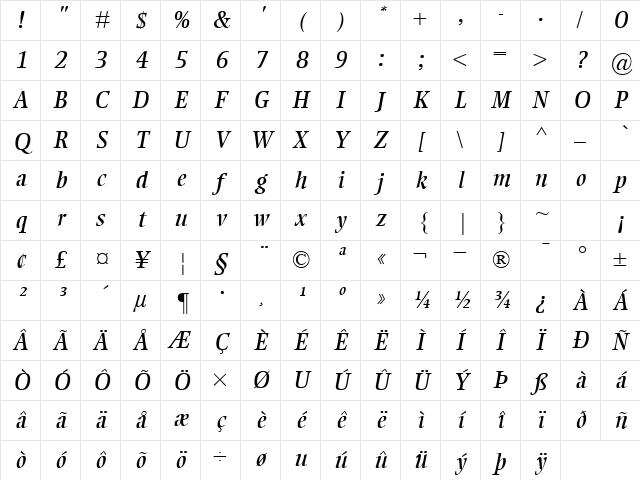
Duke Italic
Design Context for Duke
Duke is a composed and adaptable typeface that performs quietly and consistently across a wide range of design contexts. The slanted form adds forward momentum and visual energy.
Pro Tip: Use Duke for emphasis, pull quotes, and subheadings where its slanted energy can add rhythm to the layout.